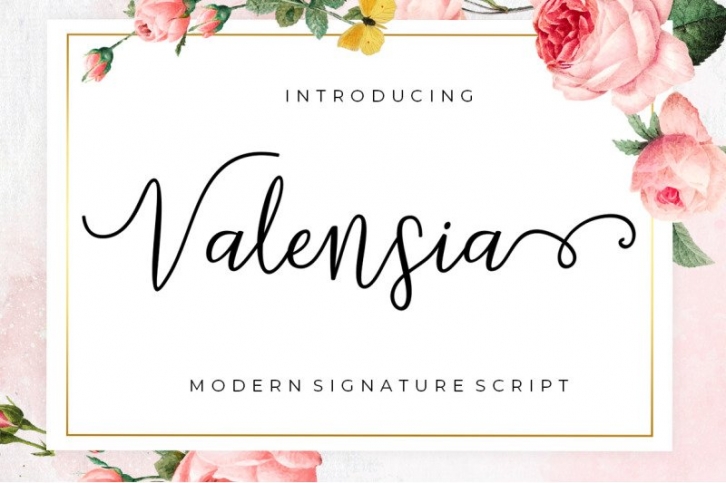
Valensia Script is a gorgeous font that was realeased on June 20, 2020. The font can be used in many style contexts and design environments. Perfect for invitations, magazines, websites, logos, and more! It was designed by Gam Studio and the file size is 9.65 MB. Thanks for checking out this font!